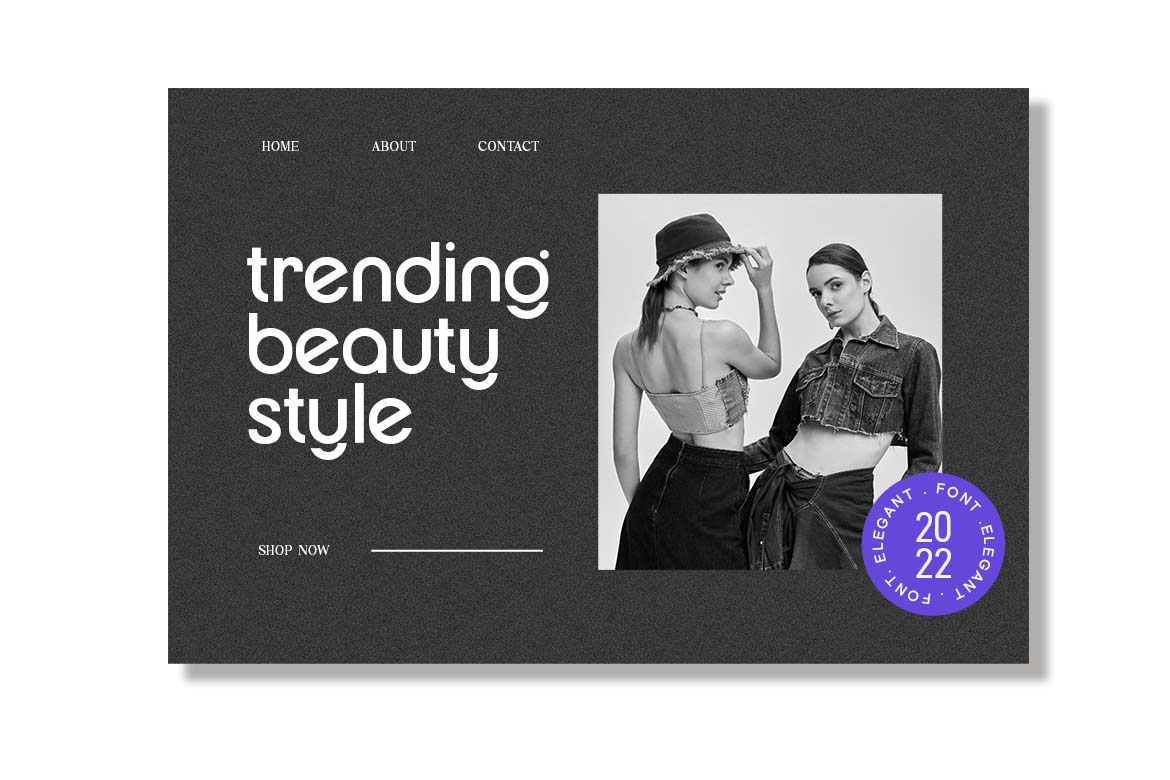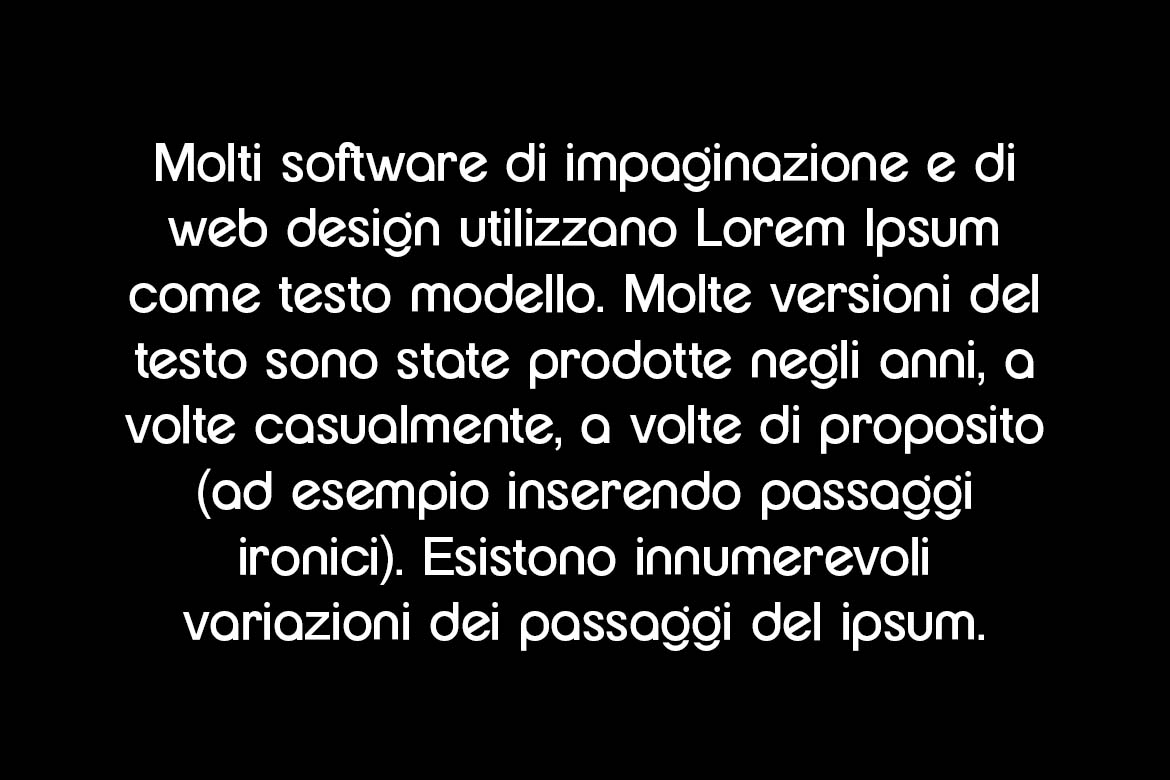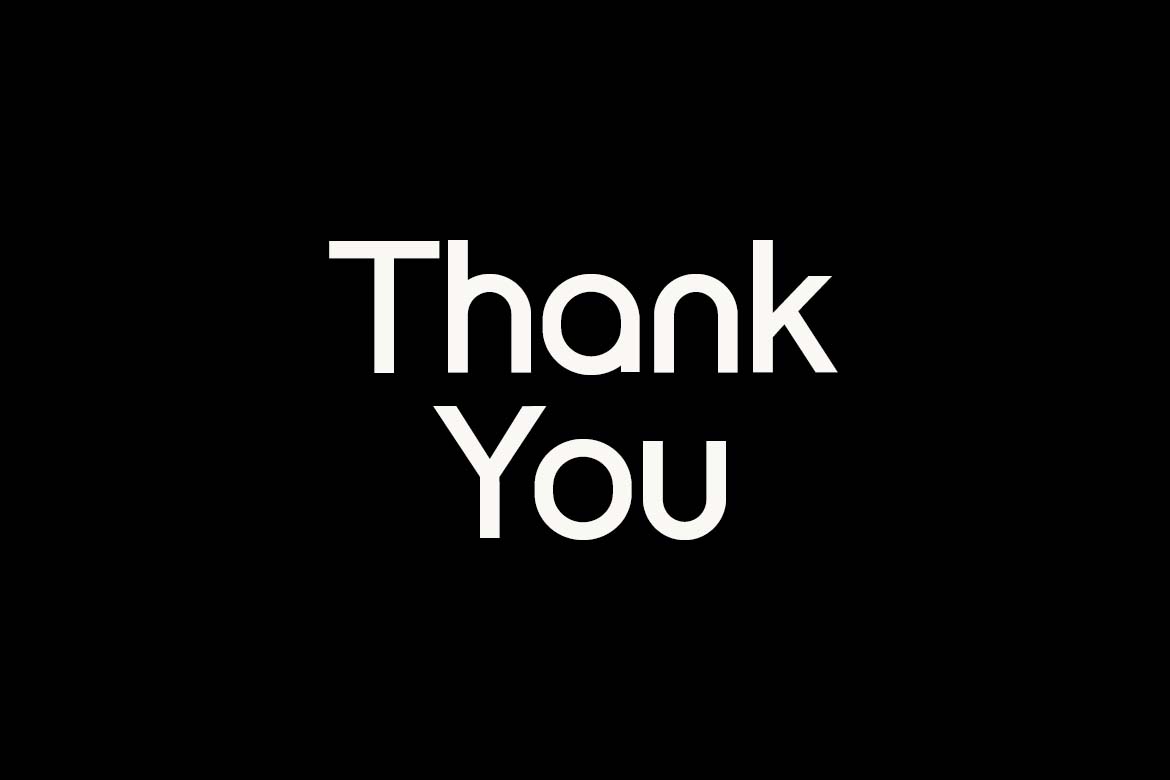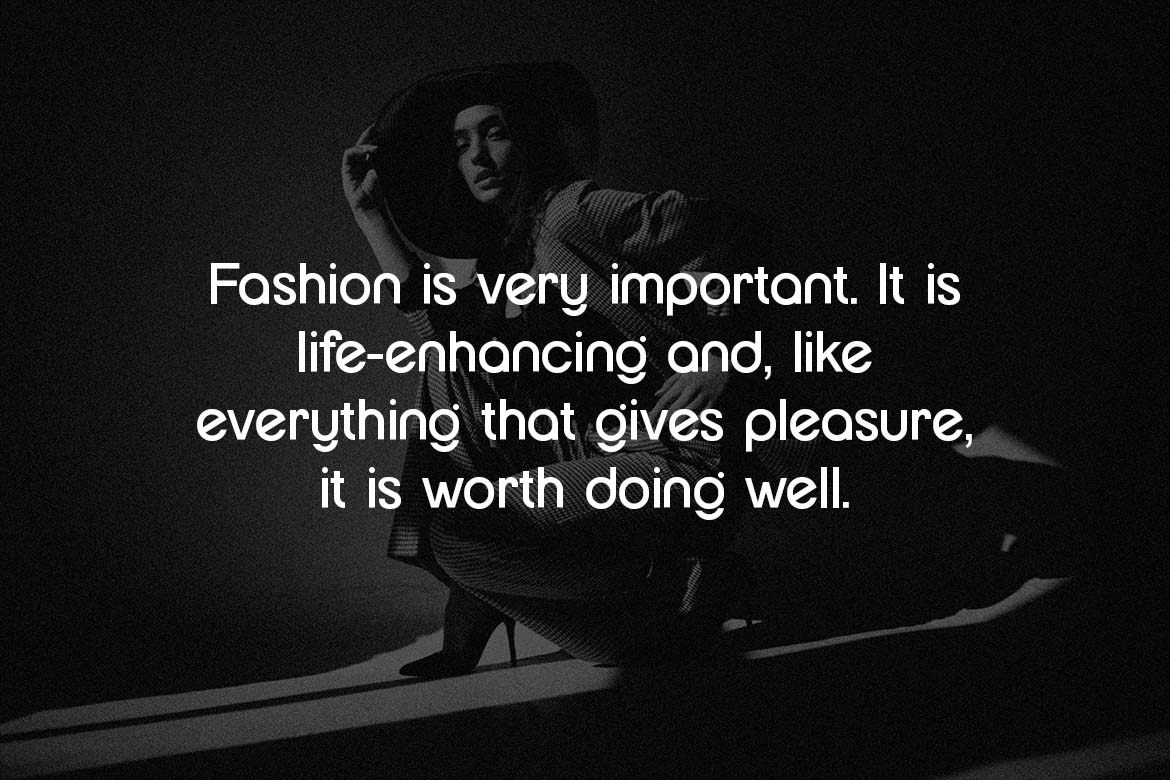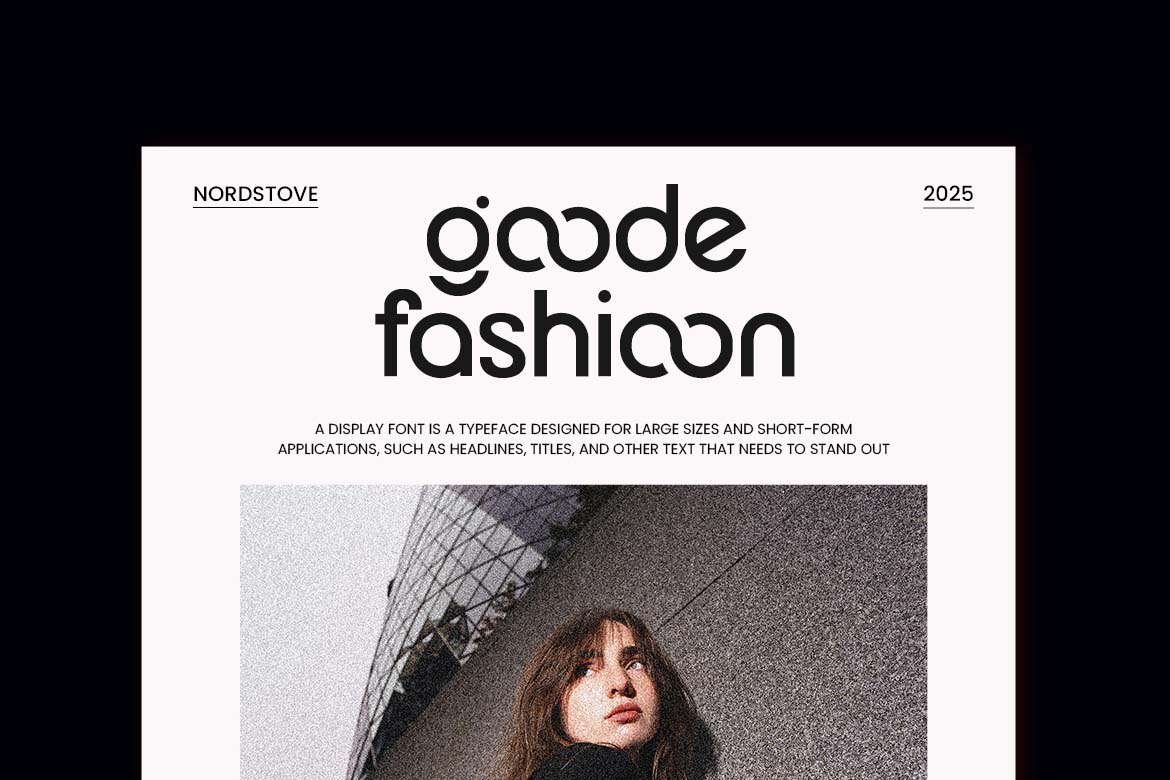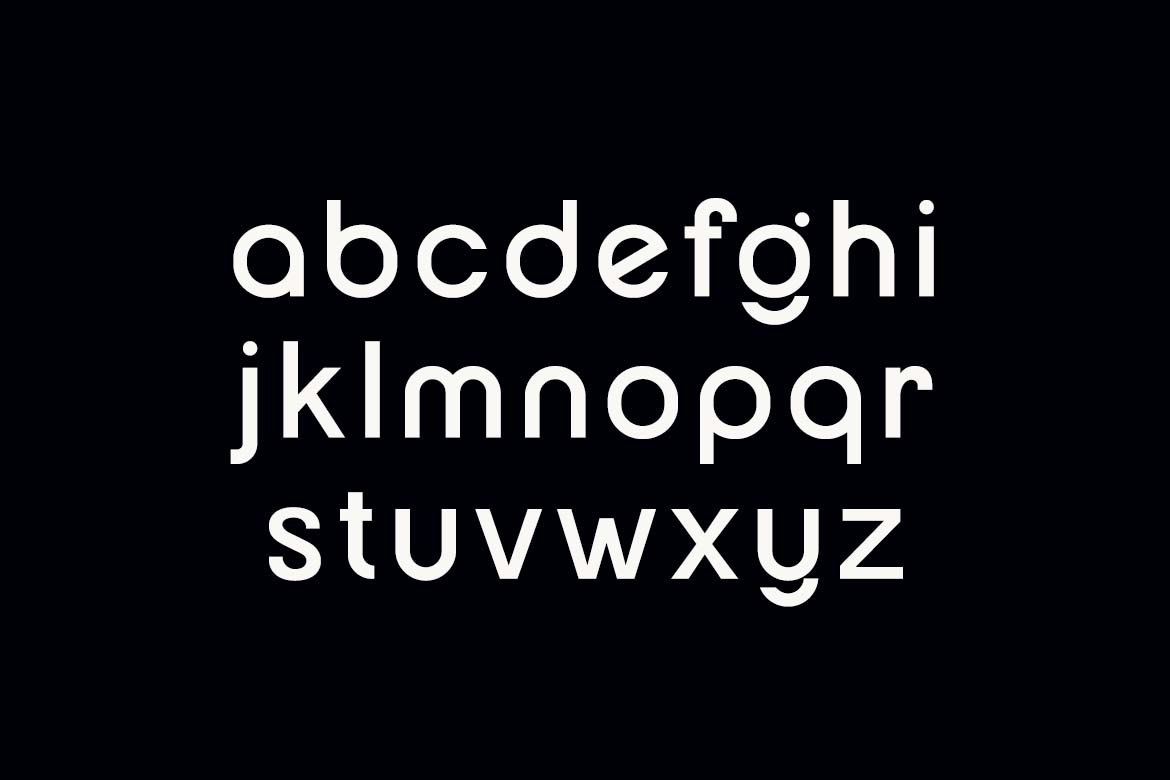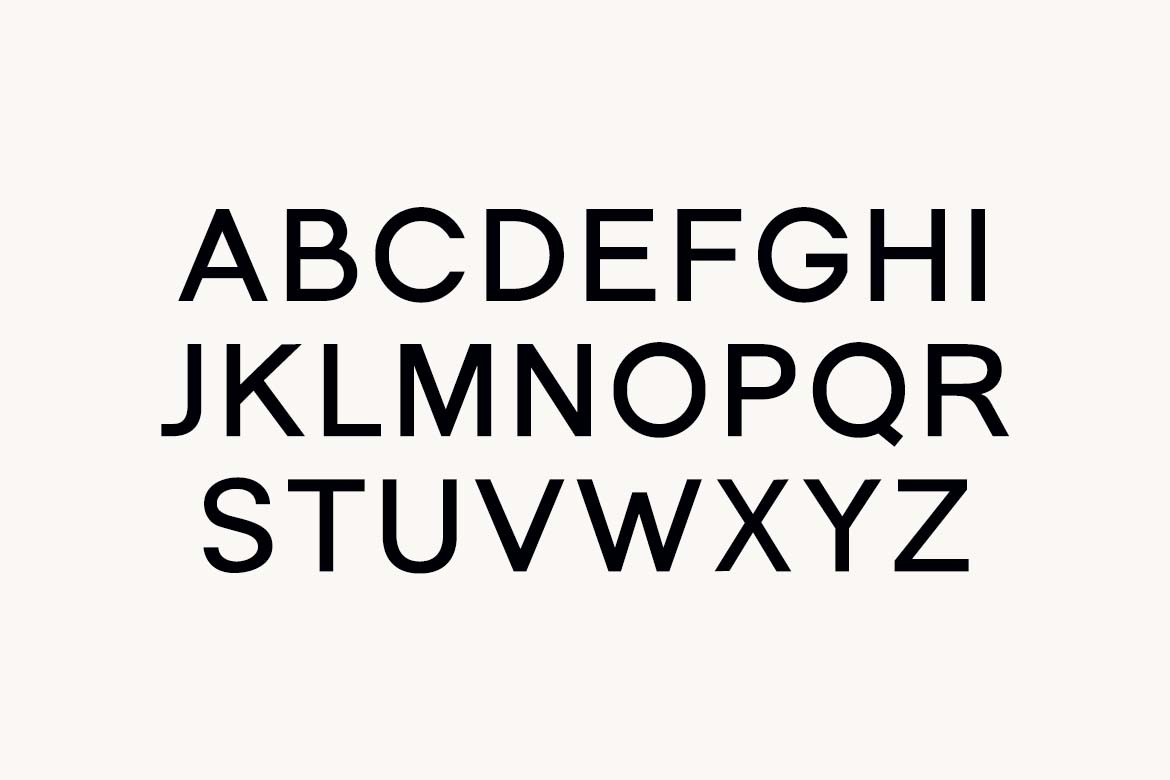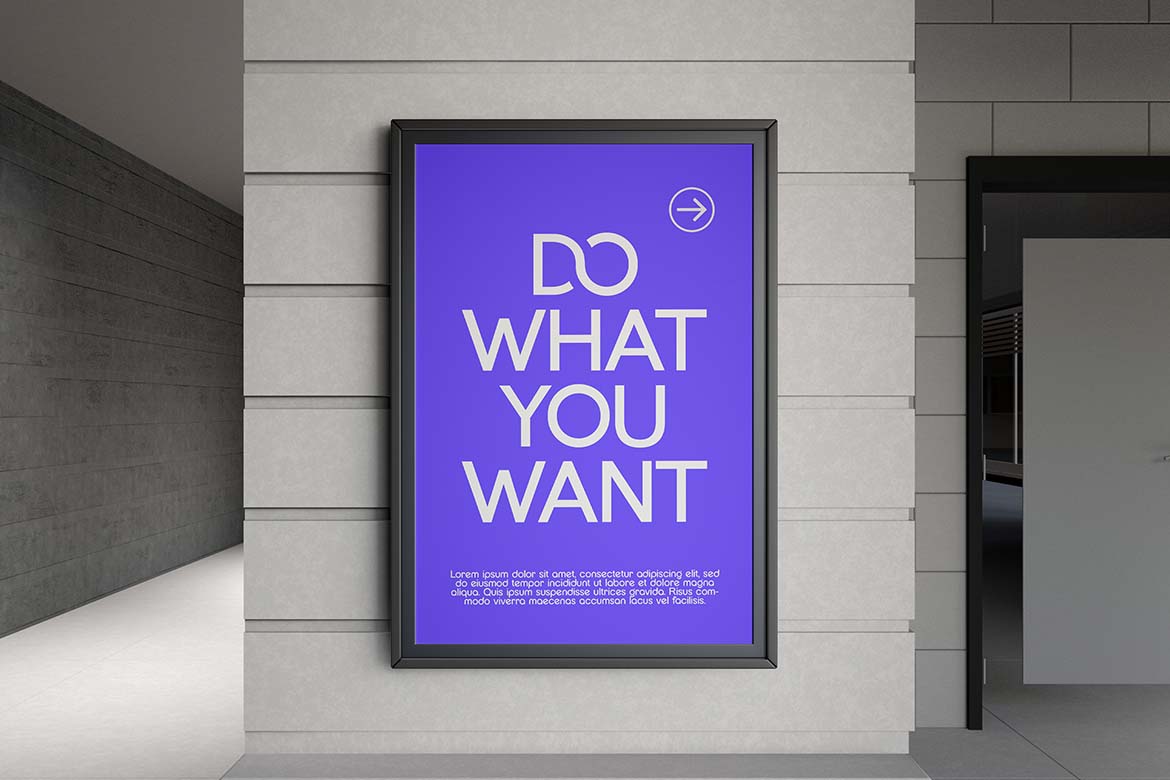
Goodspace Rounded Sans Serif Font
Goodspace is a rounded geometric sans from UI Creative made with logos in mind. Bowls are full circles, the a is single-storey, and both g and y finish in a U-shaped hook beneath the baseline, with a small round ear on the g. Its nine ligatures are what set it apart: double o’s link into interlocking rings, and A slips neatly under C or L, so a short word can turn into a ready-made wordmark.
Use it for brand names and headlines: fashion and beauty labels, tech startups, magazine covers, posters and website heroes. The previews show a “goode fashioon” magazine cover, a “SILKOO” logo built from the LK and OO ligatures, a purple “Do What You Want” poster and a “trending beauty style” web page.
• 9 ligatures (CA, DO, LA, LK, LM, LN, OO, oo, og) that appear by themselves in apps with standard ligatures; they are in the glyph panel too
• 19 alternates for A, B, E, F, G, K, P, R, T, V, W, X, Y, a, b, d, e, p and q: choose them in the glyph panel of Illustrator, InDesign or Photoshop